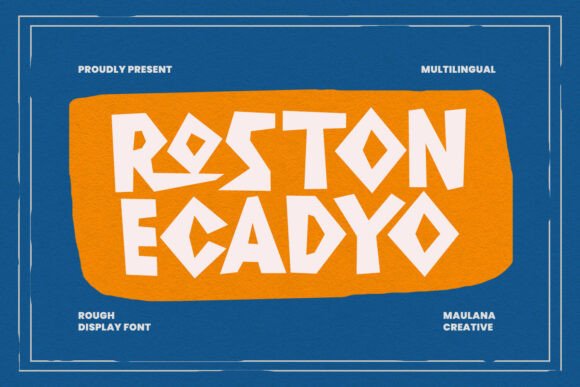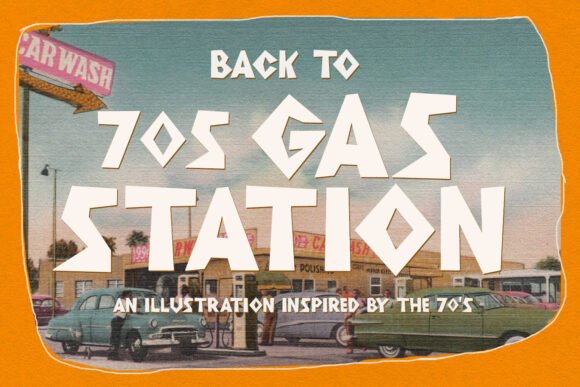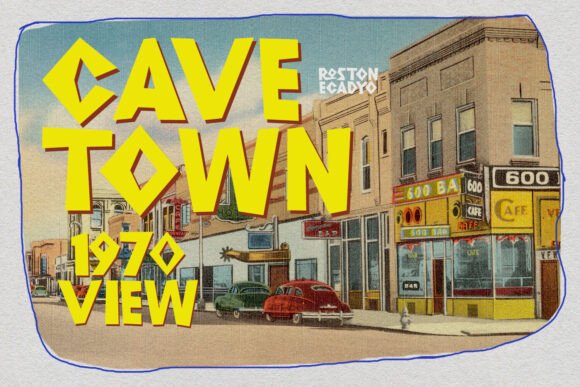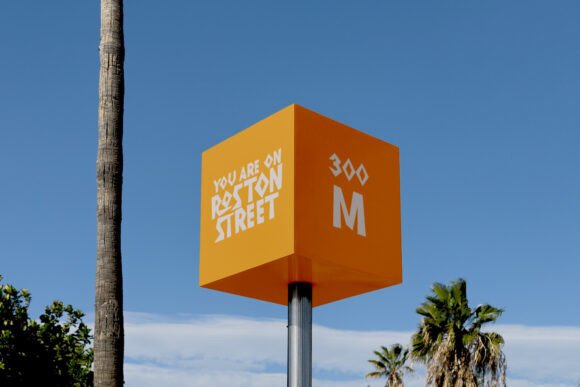
Roston Ecadyo Font
About the Roston Ecadyo Font
Elevate your designs with Roston Ecadyo Font, a font that combines sophistication with readability. Roston Ecadyo is a bold and edgy rough display font with tribal-inspired, chiseled letterforms that pack a visual punch. Its sharp angles and hand-cut vibe make it perfect for street art, posters, album covers, and anything that demands strong, fearless typography. Multilingual support and its handcrafted energy make Roston Ecadyo stand out in any project that craves a wild, artistic edge.
Roston Ecadyo excels in large-scale applications such as headlines, posters, and branding where its bold presence commands attention. It’s ideal for projects aiming for a rebellious or edgy aesthetic, think streetwear brands, music promotions, or event posters. Avoid using it for body text or UI elements; its strong forms are not legible at smaller sizes or in continuous text.
Pairing Roston Ecadyo effectively requires a contrasting typeface. A clean sans-serif like Montserrat or a minimalist geometric font such as Futura would create a strong visual counterpoint, balancing the font’s raw energy with a touch of sophistication. For a softer contrast, consider pairing it with a neutral serif like Garamond, to showcase its ruggedness while adding some readability where necessary.
The font’s core personality is undeniably bold and rebellious, conveying a sense of raw energy and uninhibited creativity. Its tribal influences add a layer of unique texture and visual interest, making it suitable for projects that demand a strong, impactful statement.
Roston Ecadyo Font Usage Examples
Roston Ecadyo Font Example